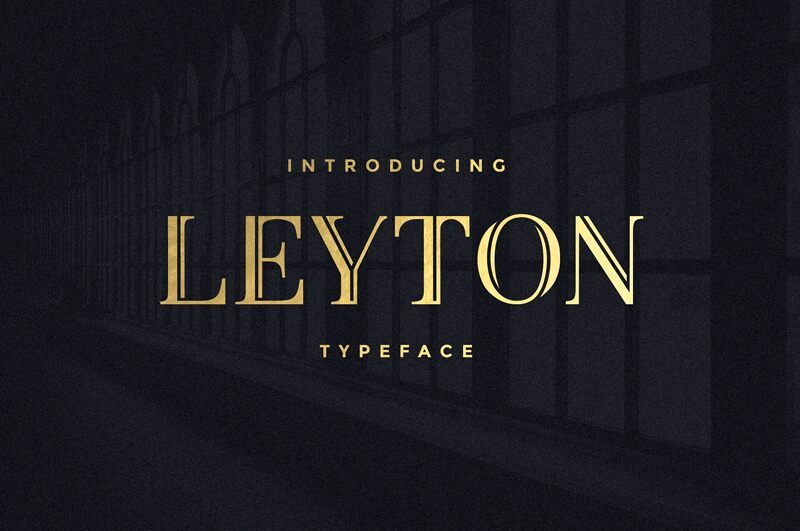
Leyton Bold
Leyton Bold is a stunning display font designed by Ellen Luff. The retro style of Leyton Bold makes it ideal for projects that require a vintage look and feel. Its semi-bold weight adds just the right amount of emphasis to your text without overpowering it. Whether you're designing a poster, logo, or packaging, this font will add personality and charm to your project. From hipster coffee shops to classic car shows, Leyton Bold is perfect for any project that needs a touch of nostalgia. Let this font transport your audience back in time and make your message stand out from the crowd.
Leyton is a unique take on a normal Serif Typeface.